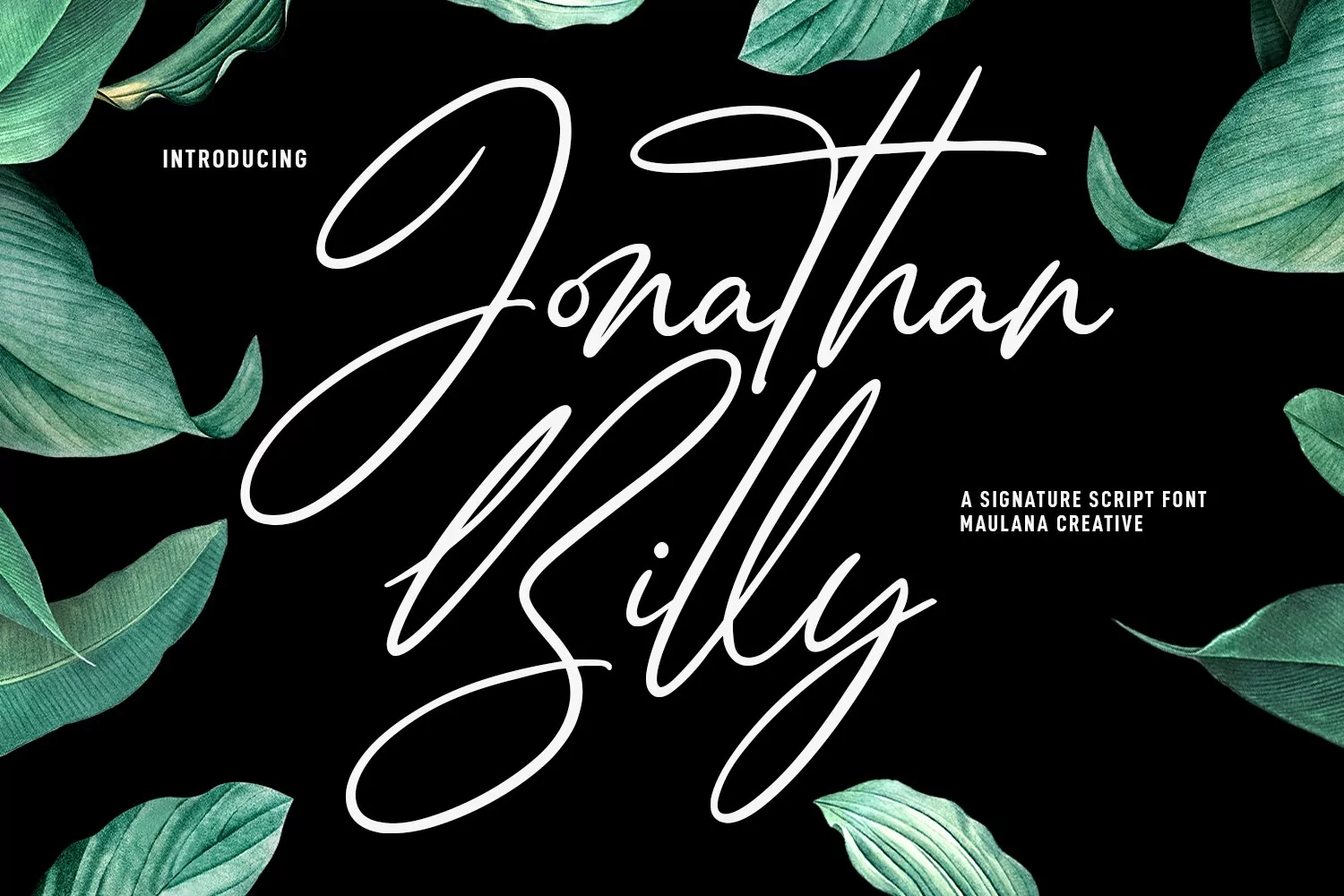
Jonathan Billy is an expressive signature script font. With thin contrast stroke, fun character with a bit of ligatures and alternates. To give you an extra creative work. Jonathan Billy font support multilingual more than 100+ language. This font is good for logo design, Social media, Movie Titles, Books Titles, a short text even a long text letter and good for your secondary text font with sans or serif. Make a stunning work with Jonathan Billy font.
Jonathan Billy